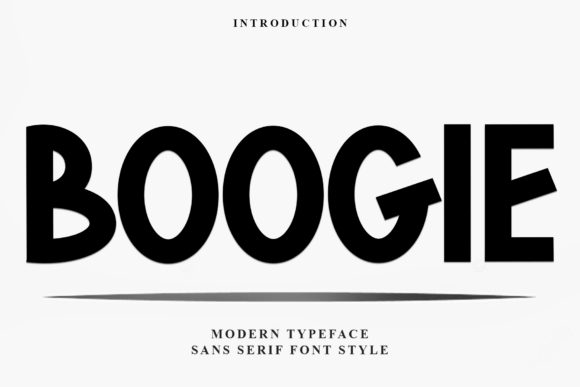
The Perfect Font for a Fun and Casual Vibe
Who hasn’t spent hours browsing through design inspiration boards, searching for the perfect font to add that extra oomph to their project? For many of us, the search for the perfect font is a never-ending journey, but what if we told you that we’ve found one that’s sure to bring a smile to your face? It’s time to get to know the charming Boogie Font!
This delightful font is perfect for designers who want to add a touch of warmth and friendliness to their projects. With its round, playful strokes and hand-drawn aesthetic, the Boogie Font is sure to bring a fun and unique touch to any design. Whether you’re working on a personal project or creating social media graphics, this font is sure to make your designs stand out.
Boogie Font Key Features
- Unique Characteristics: Boogie Font features a unique, playful, and energetic design, with bold lines and rounded edges, making it perfect for use in creative and expressive applications.
- Font Style: The font is available in a single font style, with no italic or bold variations, but its unique design makes it versatile enough to be used in a variety of contexts.
- Scalability: The font is designed to be highly scalable, allowing it to be used effectively in a range of applications, from small text to large headlines.
Boogie Font Review
As a designer, I was excited to dive into the Boogie Font, hoping to find a font that captures the fun and playful vibe of its name. ✨ Here are my honest thoughts on what works well and what doesn’t.
- ✨ Playful and fun feel: Boogie Font does deliver on its promise of being a fun and playful font. It’s perfect for creating eye-catching headings or titles that demand attention.
- ✨ Versatility: The font is available in multiple weights and styles, making it suitable for a wide range of design applications, from posters to digital interfaces.
- ⚠️ Limited legibility: While Boogie Font is great for headings, it can be a bit challenging to read in smaller sizes or for large blocks of text. This makes it better suited for use in conjunction with other fonts.
- ⚠️ Limited language support: Unfortunately, Boogie Font seems to be primarily designed for English-speaking audiences, with limited support for other languages.
Overall, Boogie Font is a great choice for designers looking to add a playful touch to their designs. While it has its limitations, it’s a solid addition to any design toolkit. With some careful use and consideration of its limitations, Boogie Font can help take your designs to the next level.
Tips for Getting the Most Out of Boogie Font
To get the most out of Boogie Font, use it for:
- Casual or creative projects, such as social media graphics or posters.
- Adding a playful touch to your designs.
- Creating a fun and energetic atmosphere.
Boogie Font is commonly used for:
- Social media graphics, such as Instagram posts or Facebook ads.
- Posters or flyers for events or promotions.
- Brand